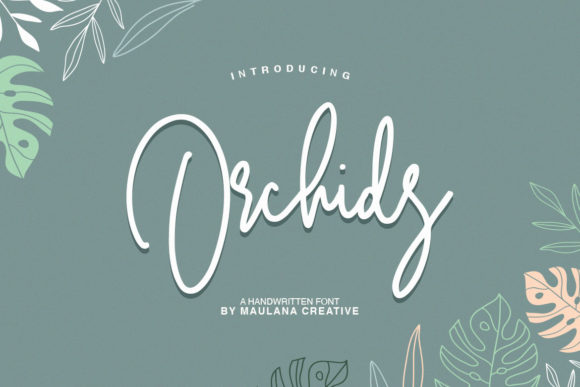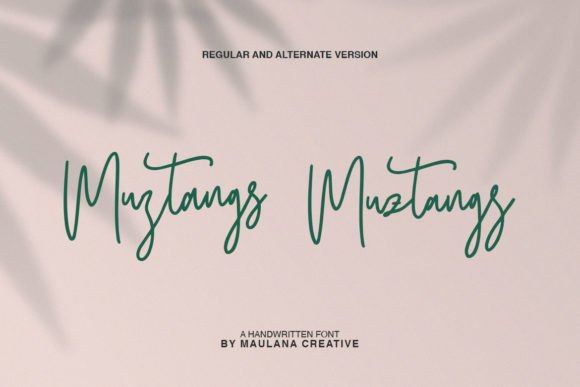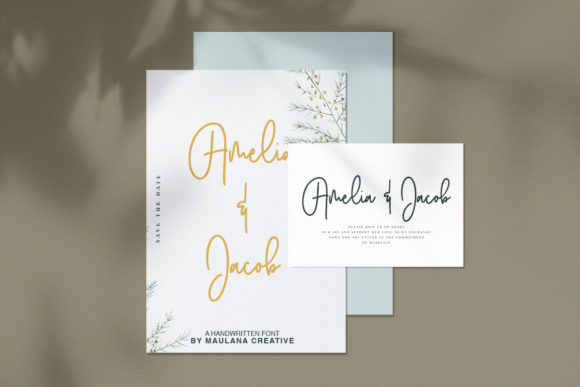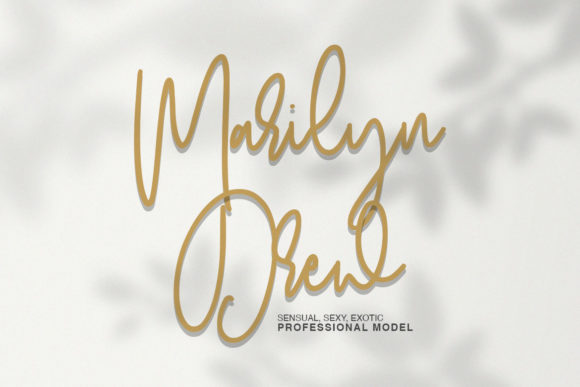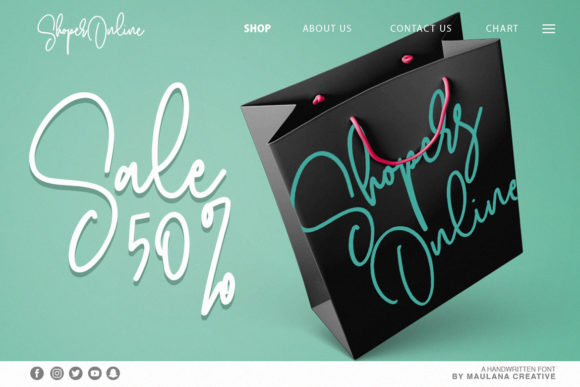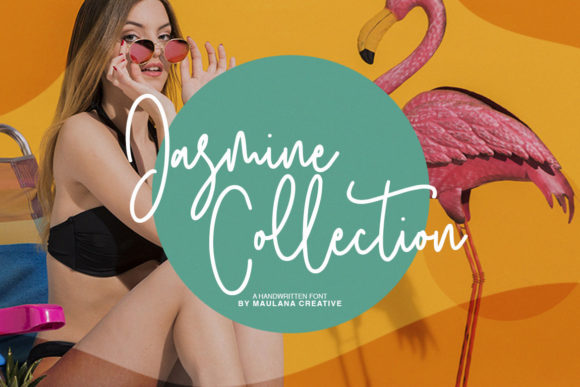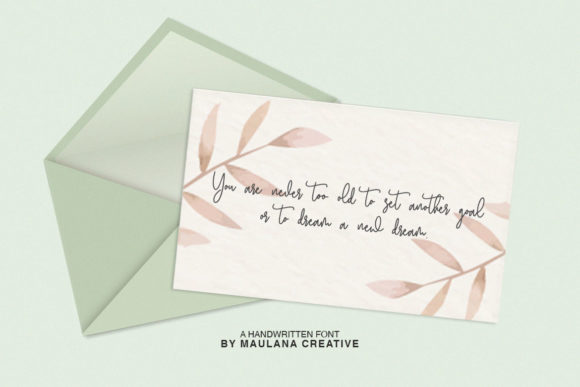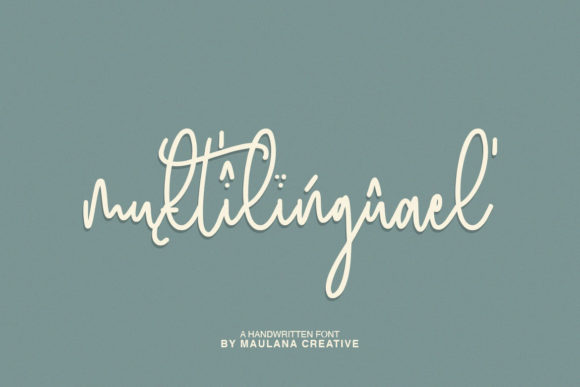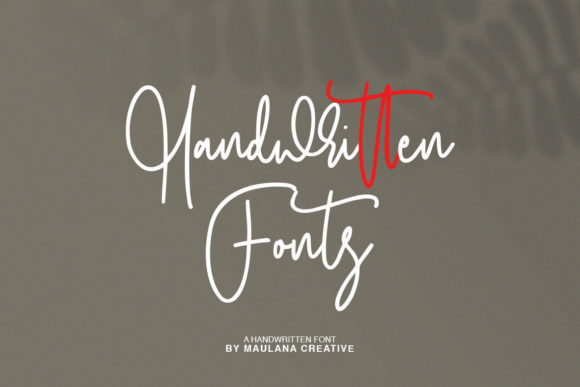
Orchids Font
Orchids looks simply gorgeous with its playful lettering and dynamic swashes. It will add an authentic touch to any crafting project in an instant.